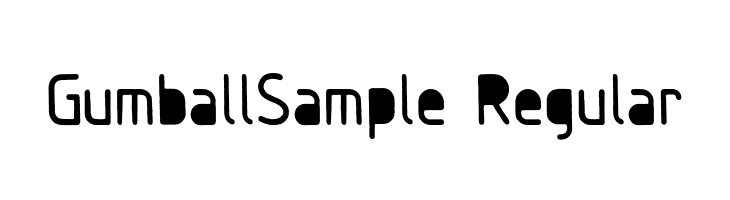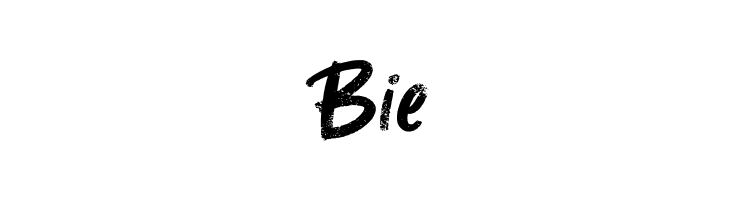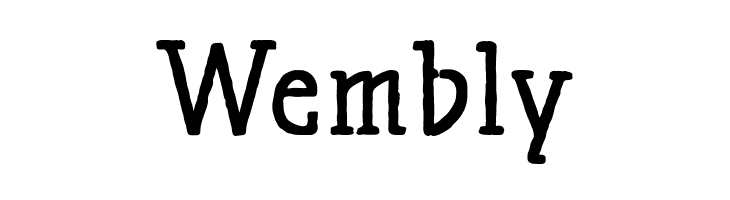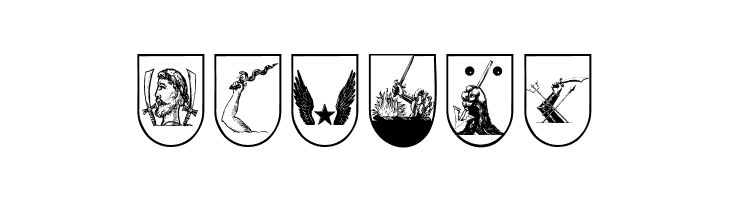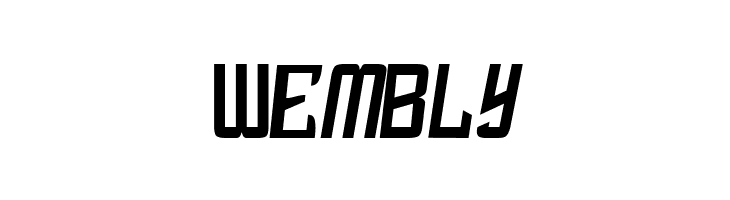
Ornate, heraldic shield-themed decorative font with detailed illustrations.
An ornate, Baroque-inspired decorative font with intricate floral designs.
A playful and whimsical font with unique, irregular strokes and a script-like appearance.
A bold, angular font with a futuristic and dynamic style.
A playful, rounded font with geometric elements and consistent stroke widths.
A bold, artistic serif font with unique curves and strong presence.
A bold, geometric font with a modern and industrial style.
A hand-drawn, light font with a geometric yet organic style.
An elegant calligraphic font with a unique double-line effect, ideal for creative projects.
A decorative font with intricate butterfly and floral patterns in uppercase letters and numbers.
A bold, decorative font with butterfly motifs in uppercase and numbers.
Intricate butterfly and caterpillar dingbats for decorative use.
) A modern sans-serif font with clean lines and balanced proportions.
A classic serif font with elegant strokes and balanced contrast.
A classic serif font with elegant strokes and balanced proportions.
A bold, italic serif font with a classic and elegant style.
A bold, classic serif font with strong strokes and elegant design.
A classic serif font with an elegant italic slant, offering sophistication and readability.
A bold serif font with a classic yet modern appeal, featuring sharp and clean characters.
A bold, italic serif typeface with medium contrast and a dynamic presence.
Elegant italic font with smooth, flowing letterforms and a classic style.
A bold, italicized font with moderate contrast and a modern yet classic style.
A bold, serif font with a classic and authoritative style.